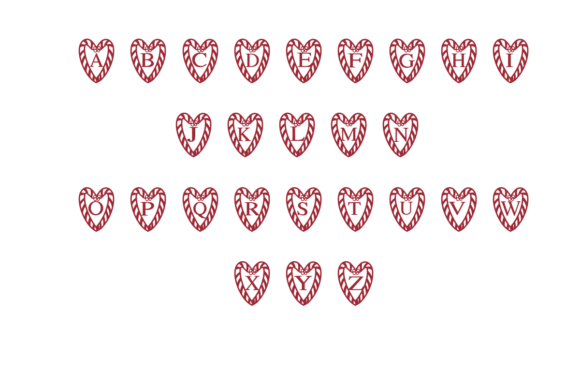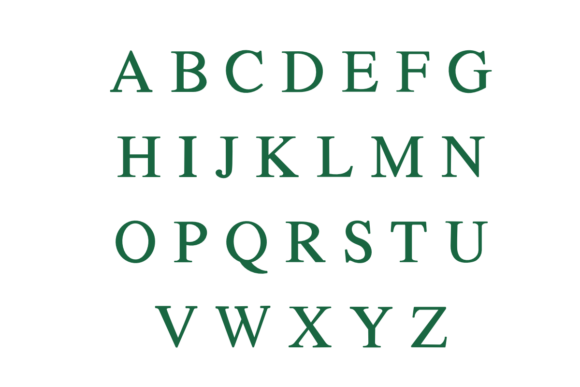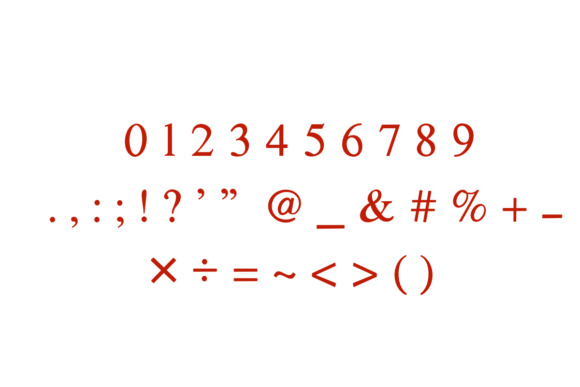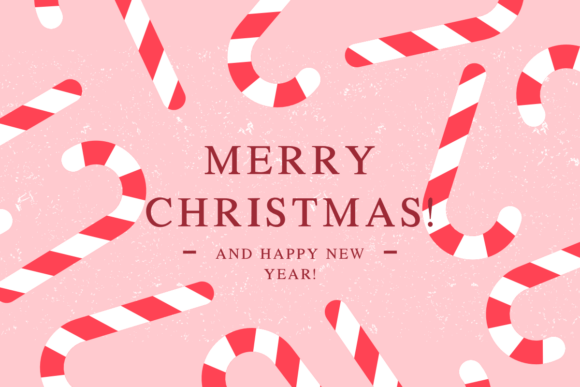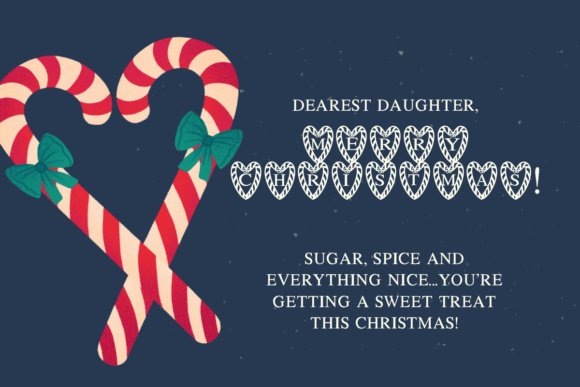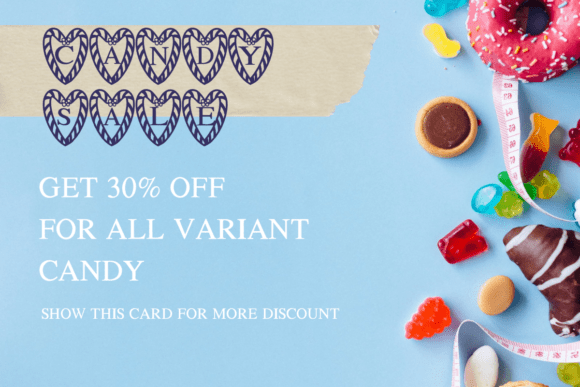
The Sweetest Holiday Font: A Deep Dive into Candy Cane Heart
Ah, the holiday season is upon us, and you know what that means – a flurry of design projects, gift-giving, and endless cups of hot cocoa. I still remember the year I was tasked with creating a festive holiday card for a client, only to find myself stuck in a font rut. I scoured the internet for the perfect blend of fun, whimsy, and holiday cheer, but nothing seemed quite right. That was until I stumbled upon the delightful Candy Cane Heart Font! ✨
This charming font has been a game-changer for my holiday designs, and I’m excited to share its magic with you. So, let’s dive in and explore what makes Candy Cane Heart so special.
• ✨ Unique and playful design: The bold uppercase letters encased in heart-shaped outlines patterned like candy canes are a true showstopper.
• ✅ Smooth and rounded letterforms: The font’s smooth curves create a friendly, approachable feel that’s perfect for holiday projects.
• 🎉 Instant festive vibe: The striped detailing and candy cane pattern instantly evoke the holiday spirit, making it a great choice for seasonal designs.
• 💻 Versatile for print and digital: Whether you’re working on a holiday card, event invitation, or product packaging, Candy Cane Heart is up to the task.
While Candy Cane Heart is an amazing font, there are a few things to keep in mind: 🤔
• ⚠️ Limited character set: As a decorative font, Candy Cane Heart might not have all the characters you need for more complex projects.
• ⚠️ May not be suitable for body text: Due to its bold and playful nature, Candy Cane Heart might not be the best choice for longer blocks of text.
The Story Behind Candy Cane Heart
While the true origins of Candy Cane Heart might be shrouded in mystery, it’s easy to imagine a designer sitting by the fireplace, surrounded by candy canes and holiday decorations, with a spark of inspiration striking as they crafted this delightful font. ❄️
Perhaps the designer, fueled by hot cocoa and holiday cheer, wanted to create a font that would bring joy and whimsy to holiday designs. Whatever the story, Candy Cane Heart has become a beloved font for designers and crafters alike.
Q: What makes Candy Cane Heart so special?
A: Candy Cane Heart’s unique blend of bold uppercase letters, heart-shaped outlines, and candy cane patterns makes it a standout font for holiday designs.
Q: Can I use Candy Cane Heart for non-holiday designs?
A: While Candy Cane Heart is designed with the holiday season in mind, there’s no rule that says you can’t use it for other projects! Feel free to get creative and use it whenever you need a touch of whimsy and fun.